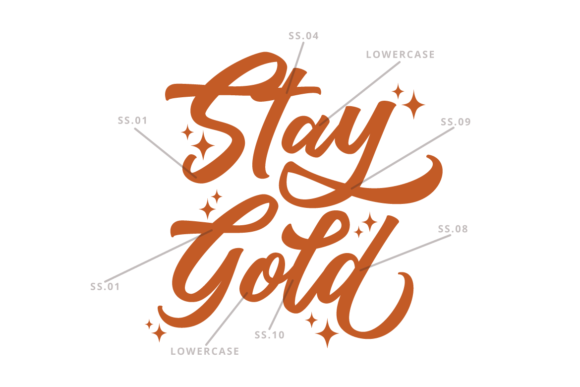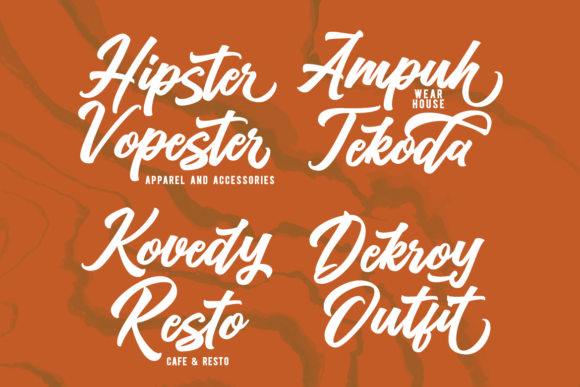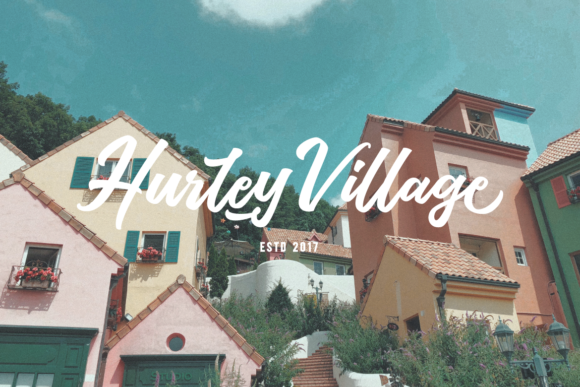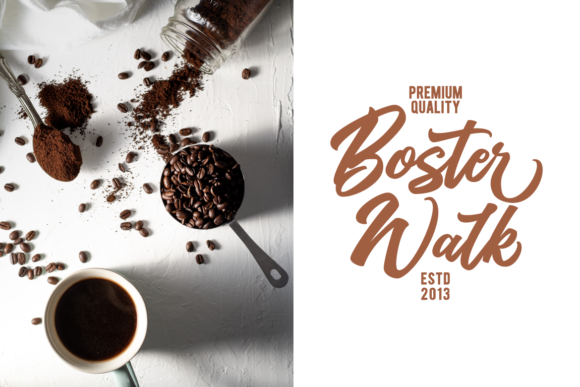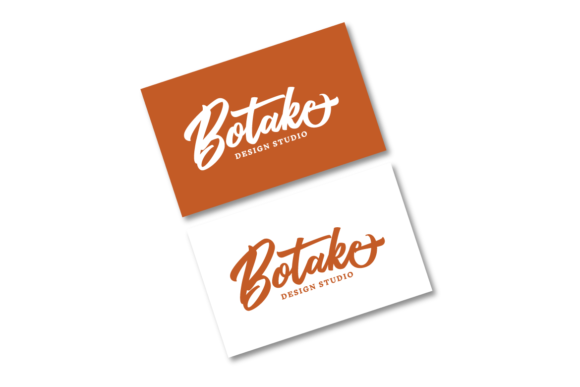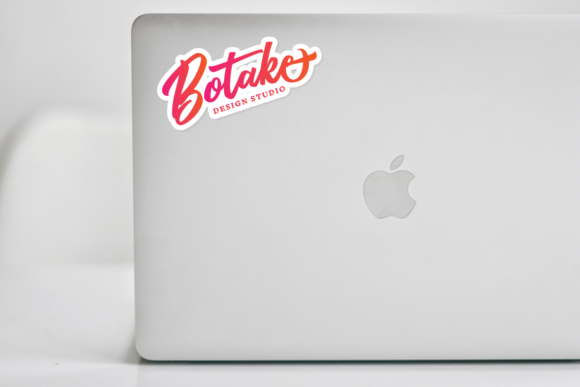
The Artukge Script Font: A Stylish Touch for Your Designs
I’ll never forget the time I was working on a project for a client who wanted a bold, yet nostalgic look for their brand. I had spent hours scouring the internet for the perfect font, but nothing seemed quite right. That was until I stumbled upon the Artukge Script font. With its gorgeous paint-brushed handwritten style, it was exactly what I needed to give my design a stylish touch. In this article, I’ll share my experience with the Artukge Script font, its features, and how to make the most of it in your designs.
A Personal Review of Artukge Script
- ✨ The font’s strong, confident, and dynamic personality makes it perfect for headlines and logotype projects.
- ✅ The nostalgic character it adds to designs is hard to match with other fonts.
- 💫 The paint-brushed effect gives the font a unique, hand-crafted feel.
- 🎨 The font’s versatility allows it to be used in a variety of design contexts, from modern to vintage.
While the Artukge Script font is amazing, there are a few things to keep in mind:
- 🤔 The font’s bold style can be overwhelming if not used in moderation.
- ⚠️ Some characters may not work well in smaller font sizes, so it’s best to use it for headlines or titles.
The Story Behind Artukge Script
The Artukge Script font was designed with the intention of creating a unique, hand-crafted look that’s both stylish and nostalgic. The designer aimed to capture the feel of traditional paint-brushed lettering, while also making it versatile enough for modern design applications.
Q: What is the Artukge Script font best used for?
A: The Artukge Script font is best used for headlines, logotype projects, and any design that requires a bold, yet nostalgic look.
Q: Is the Artukge Script font suitable for body text?
A: No, the Artukge Script font is best used for headlines or titles, as it can be overwhelming for body text.